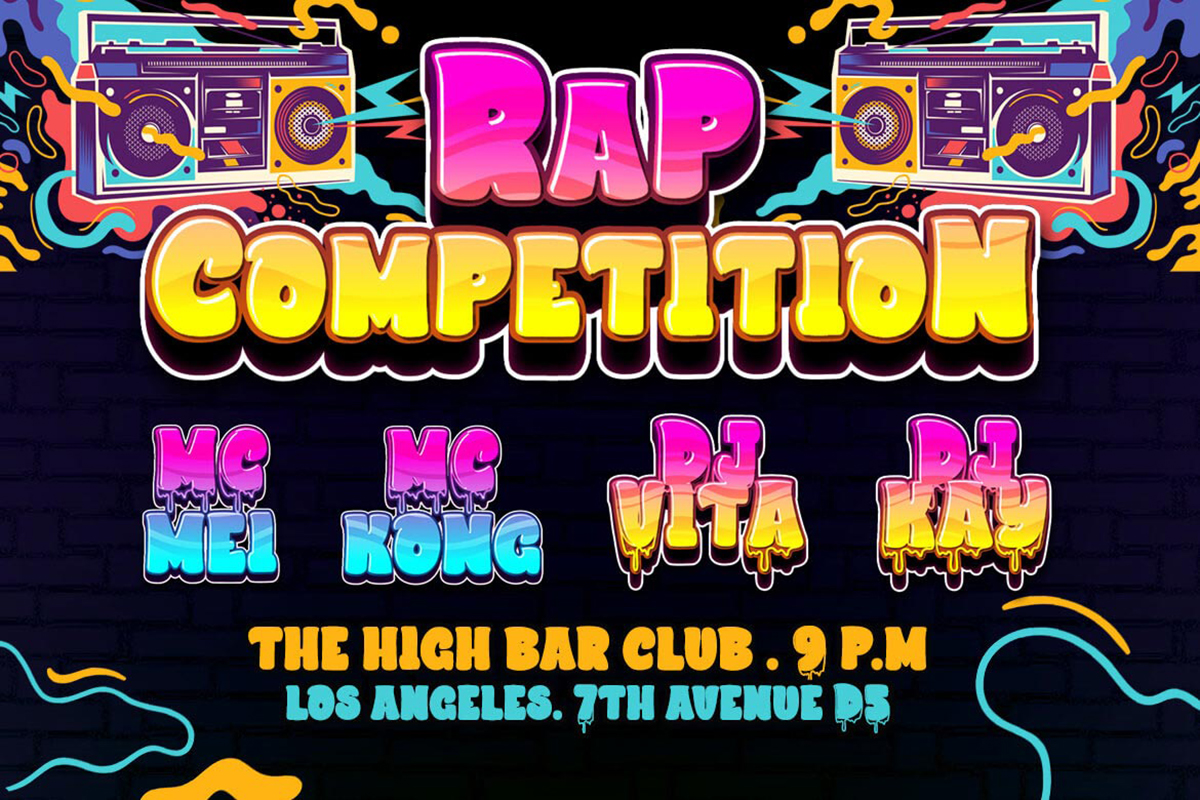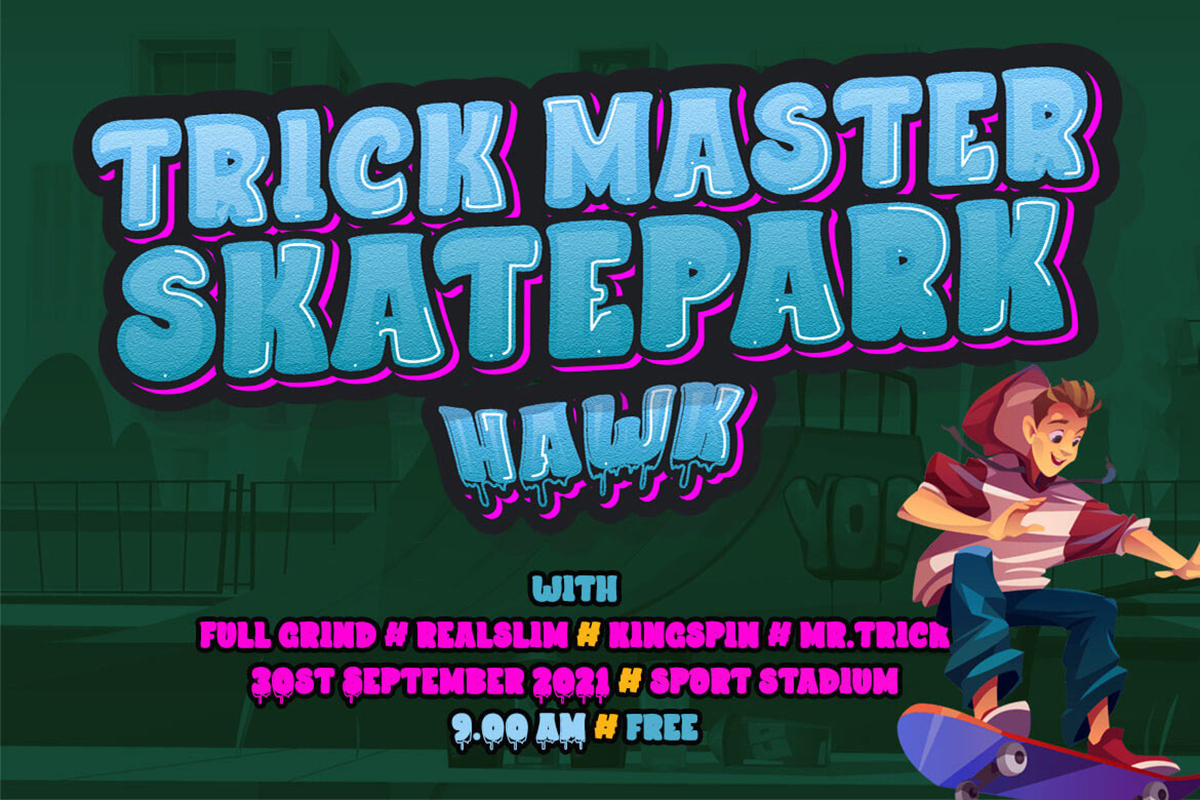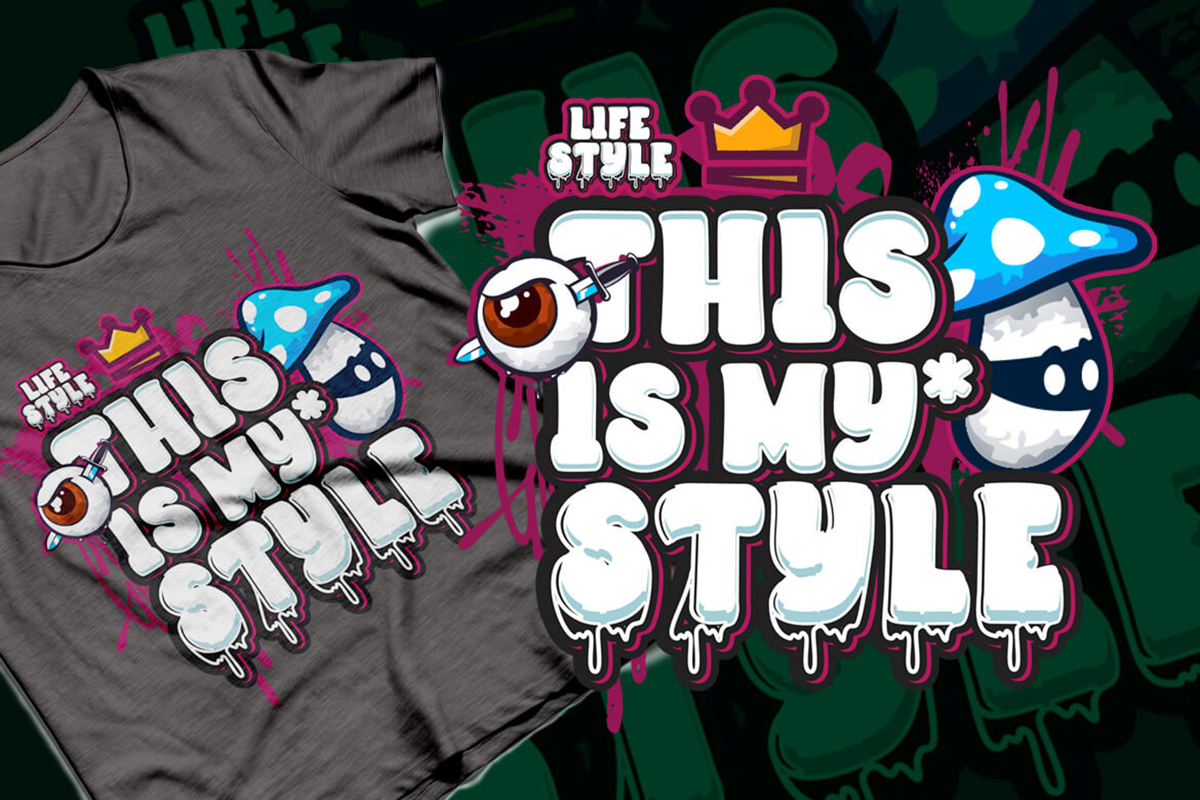
Keway Free Font
Keway Free Font is a graffiti-inspired display font characterized by bold, thick lettering. It’s a versatile choice perfect for a wide range of design applications, including t-shirts, sportswear, logos, advertisements, clothing, and beyond. This free typeface was designed by a talented Twin Letter. If you like it don’t forget to check out the full version.